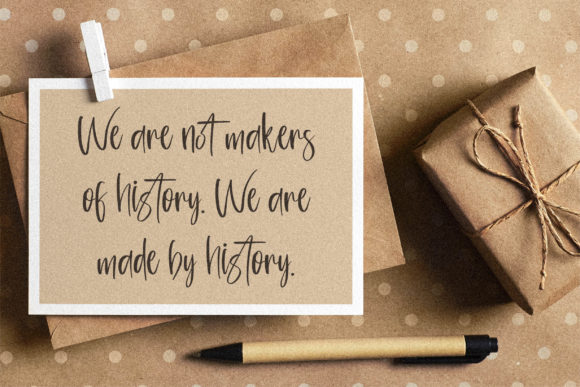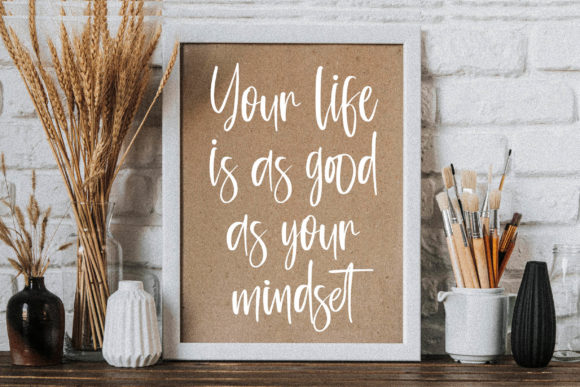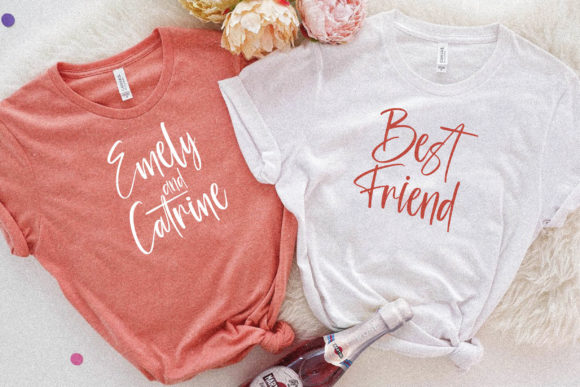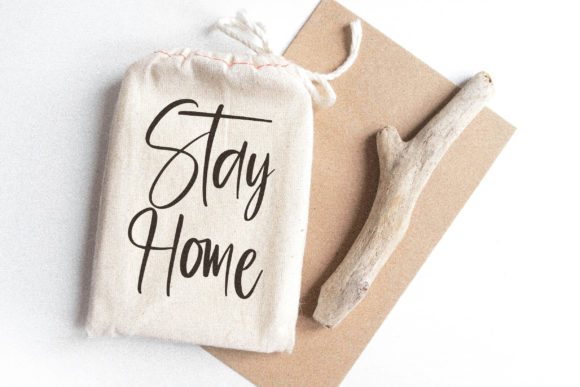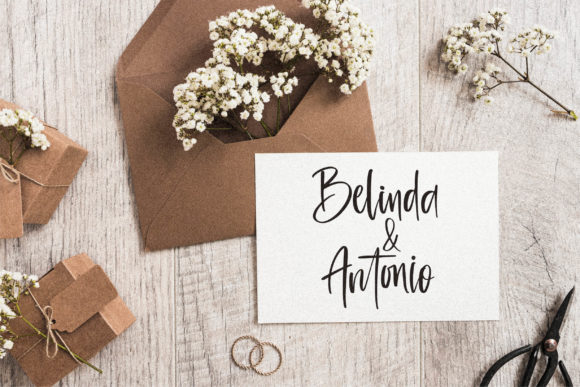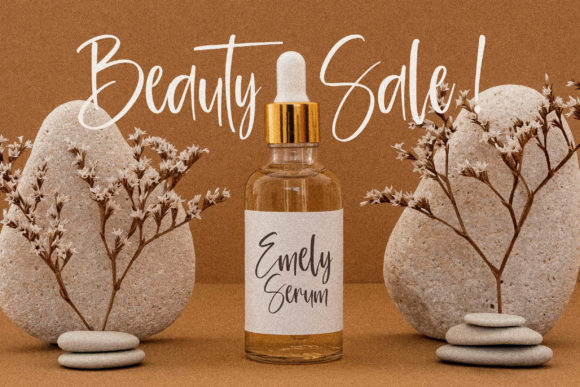
Farmhouse Font
About Farmhouse Font
Farmhouse is a lovely and delicate script font that exudes elegance and class. This font was particularly crafted for those who need a beautiful and refreshing look to their designs.